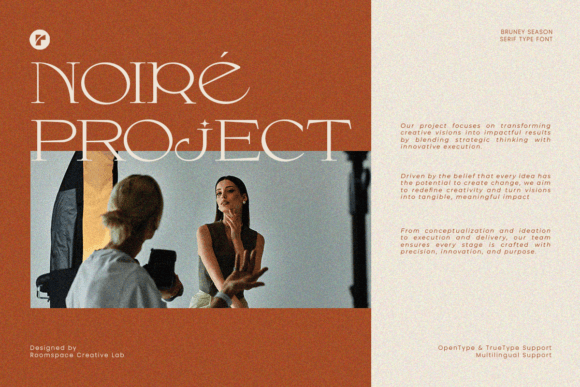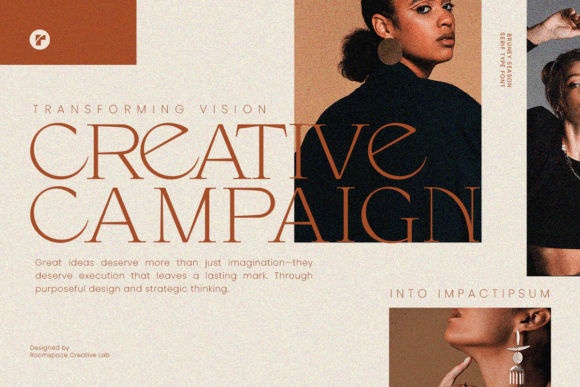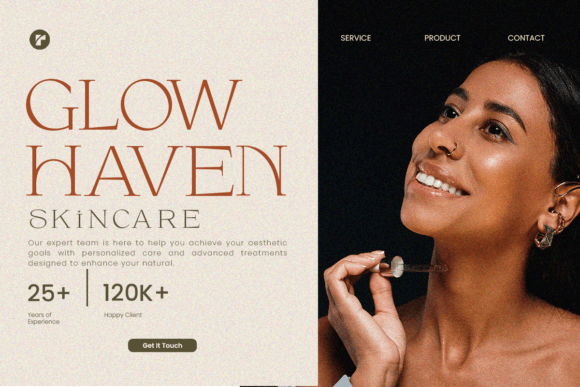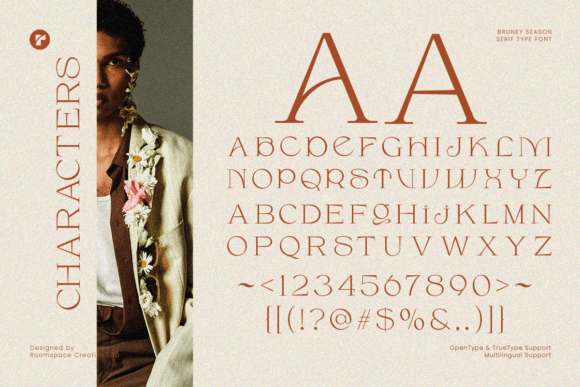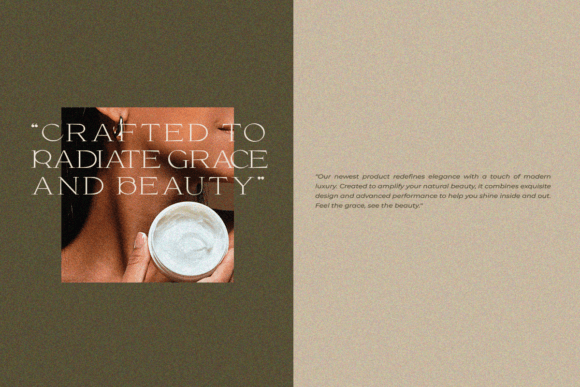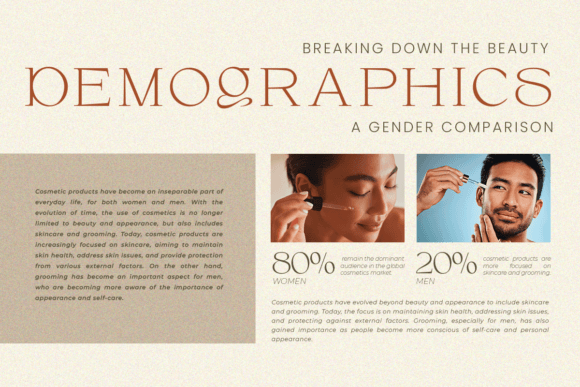
Introduction to Bruney Season Font
Bruney Season, a stunning serif display font that combines timeless elegance with a modern aesthetic.
Designed to captivate, this font showcases graceful curves and unique letterforms, making it the perfect choice for fashion branding, editorial design, wedding invitations, logos, and high-end projects Features: Elegant serif display font with stylish curves Perfect for fashion branding, logos, editorial designs, and wedding invitations Compatible with OpenType and TrueType formats for versatile usage Multilingual support with a wide range of international characters This font is ideal for anyone looking for an elegant serif font with a modern and aesthetic appeal.